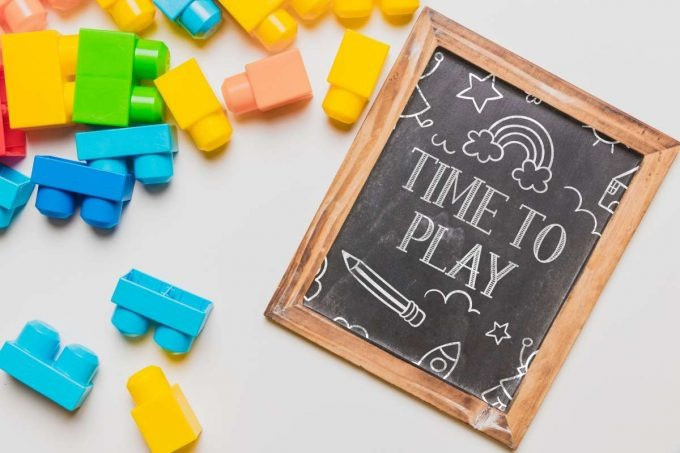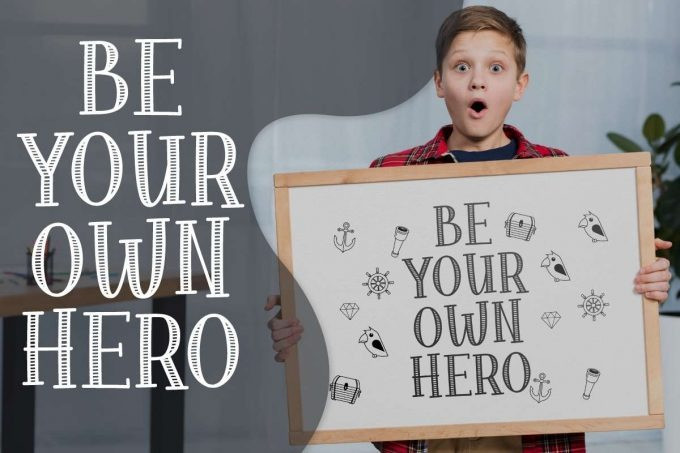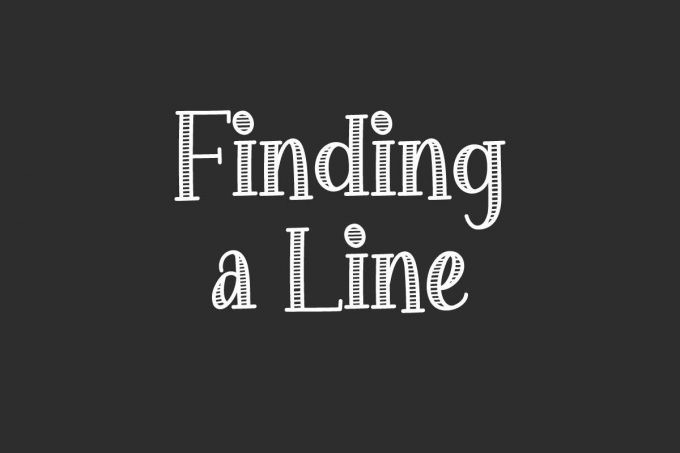
Agnes Font
Agnes Display Font is a cute and simple-lettered display font perfect for all chalkboard quotes and teaching material! Its authentic look will add a personal and realistic feel to your designs.